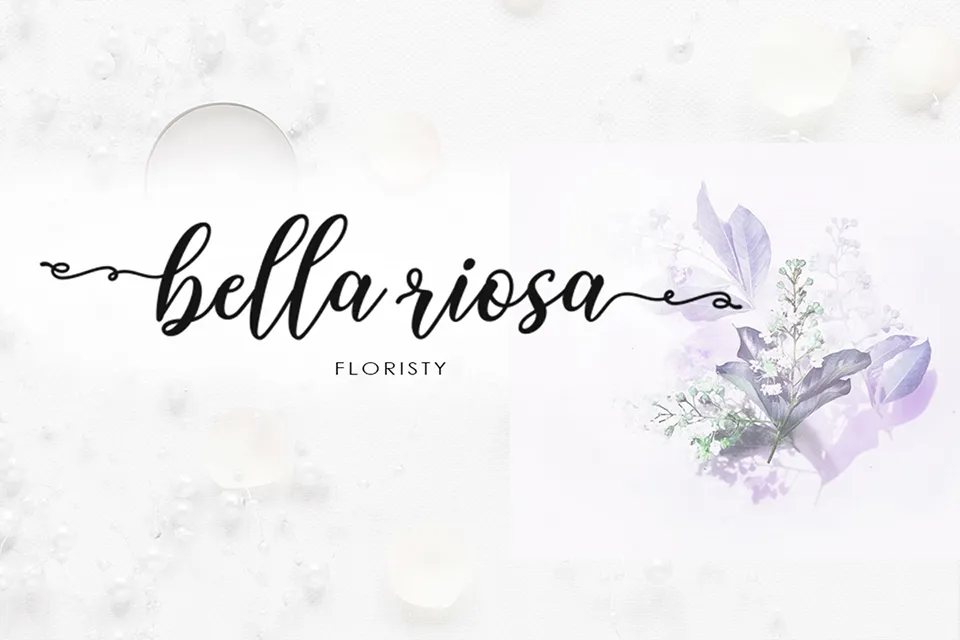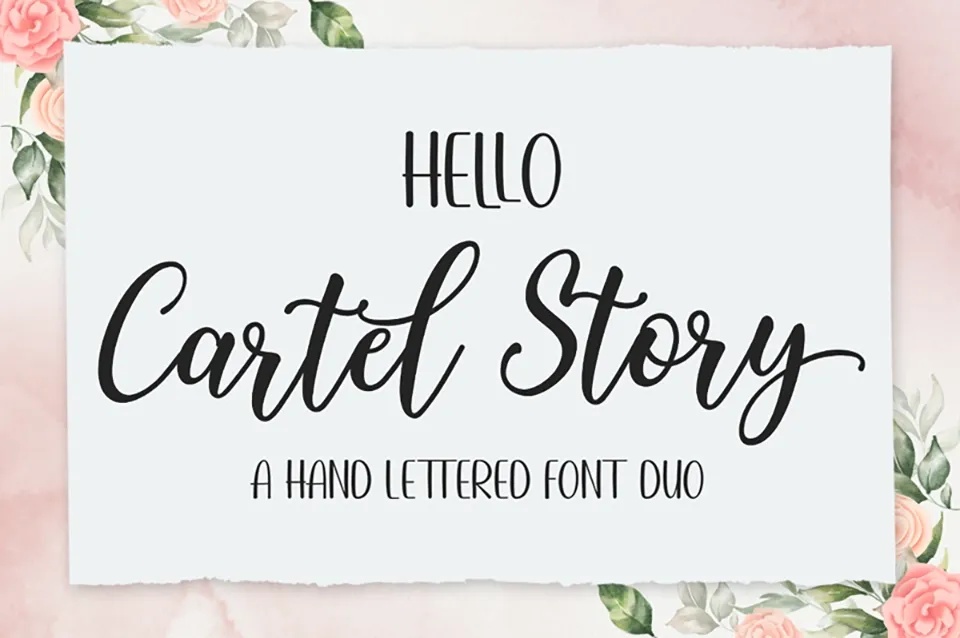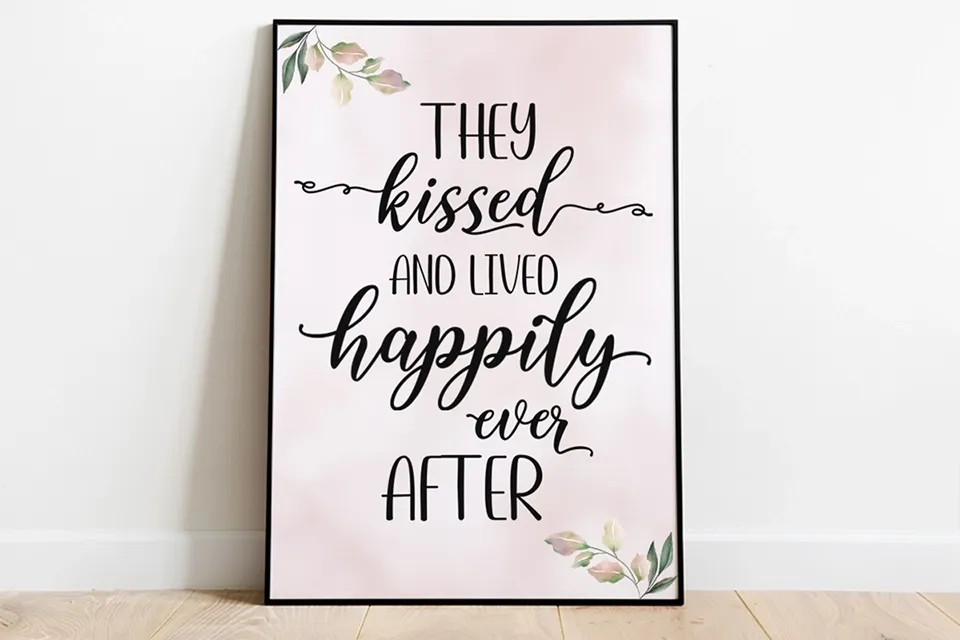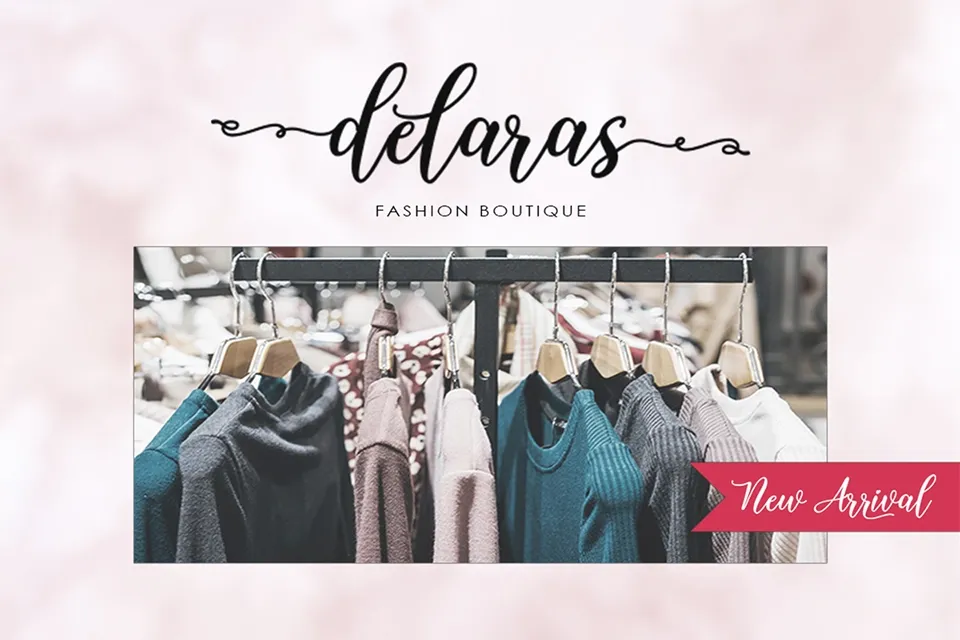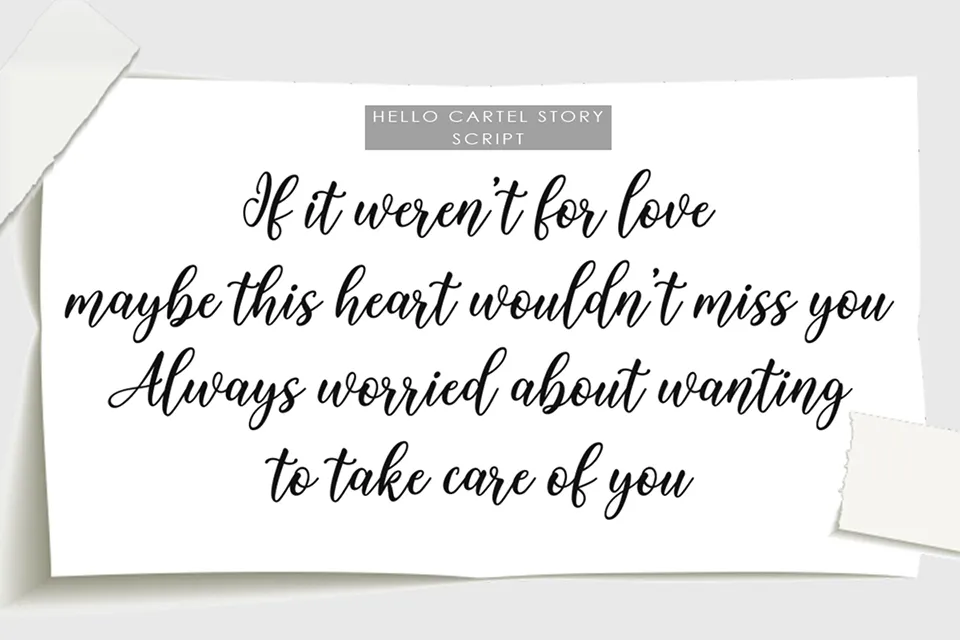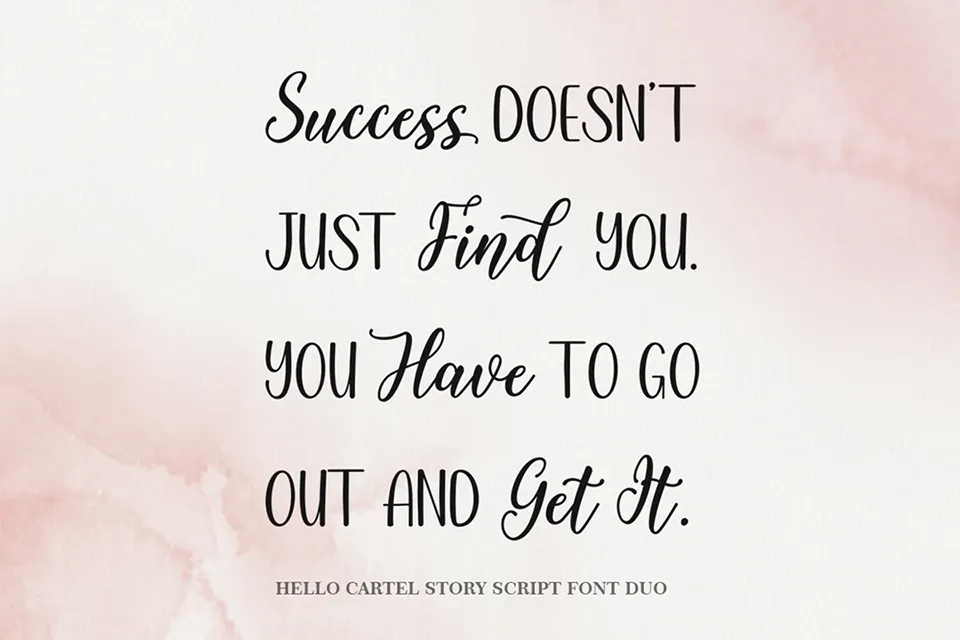
Hello Cartel Story Font Duo
Hello Cartel Story Font Duo is a modern and stylish font duo created by Attract Studio. It pairs a trendy script font, notable for its irregular baselines, with a complementary hand-lettered style. This combination creates a feminine and fashionable aesthetic that looks beautiful in various design contexts. The hand-lettered appearance adds a personal and charming touch. Ideal for branding, invitations, website headings, and social media graphics, Hello Cartel Story Script Duo is available for both webfont and desktop applications, offering versatility for creative projects seeking a contemporary, handcrafted feel.